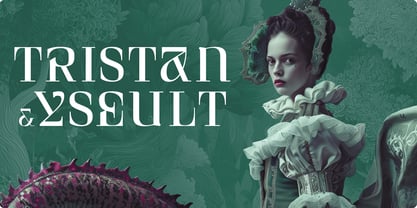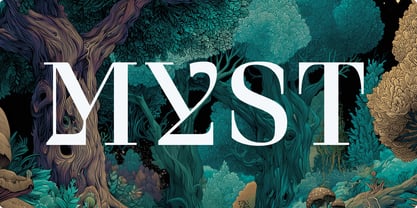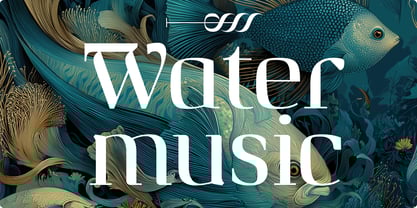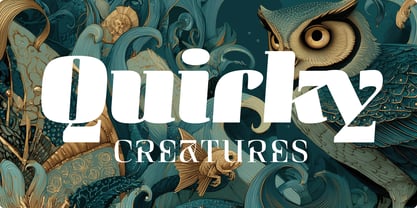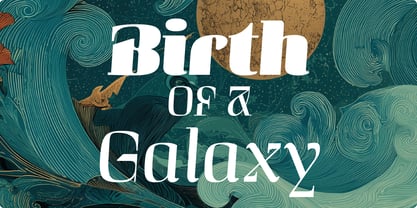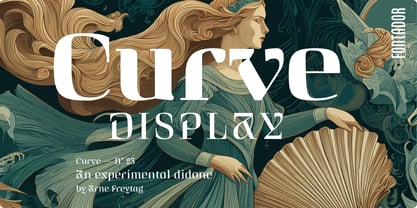
Curve Display
par Fontador
La famille de polices Curve Display a été conçue par Arne Freytag et publiée par Fontador. Curve Display contient 10 styles et options de package familial. En savoir plus sur cette famille
Curve Display is the related variant of Curve. It is a contemporary display font that combines the elegant classicism of the Didone tradition with experimental deconstruction. It has a large x-height and super-elliptical shapes that are deliberately broken, fragmented or mirrored. The result is a powerful tension between elegance, irritation and contemporary expression. Curve Display stands for strong visual statements that deliberately experiment with legibility and perception.
Fontador is a small type foundry based in Hamburg, founded by Arne Freytag.¶He was born in Hamburg in 1967. In 1995, he won a scholarship to study Graphic Design at the Kunstschule Alsterdamm art school in Hamburg. As a post graduate in 1998, he attended the Atelier National de Recherche Typographique in Paris. He has published various articles in Tipografica, étapes and the Typografische Monatsblätter. He has been working as a freelance typographic and graphic designer since 2000.